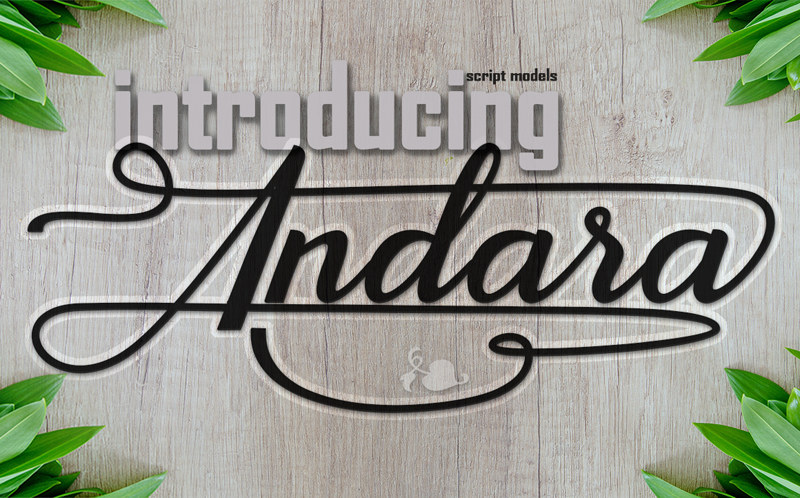
Andara is a lovely handwritten font, described by an elegant touch, perfect for your favorite projects. Fall in love with its incredibly distinct and timeless style and use it to create spectacular designs! |